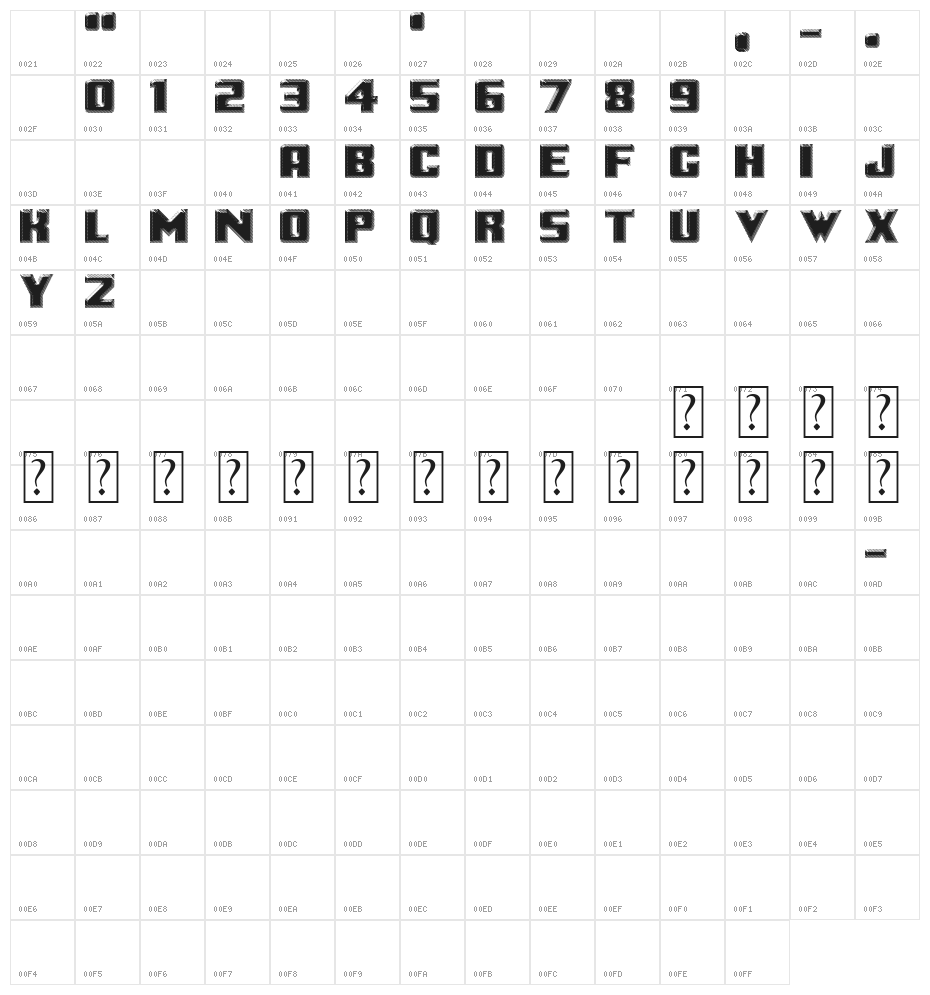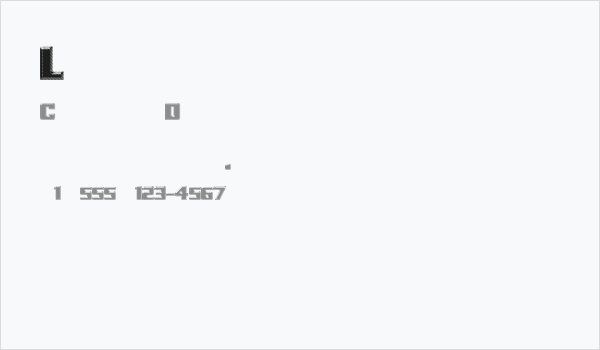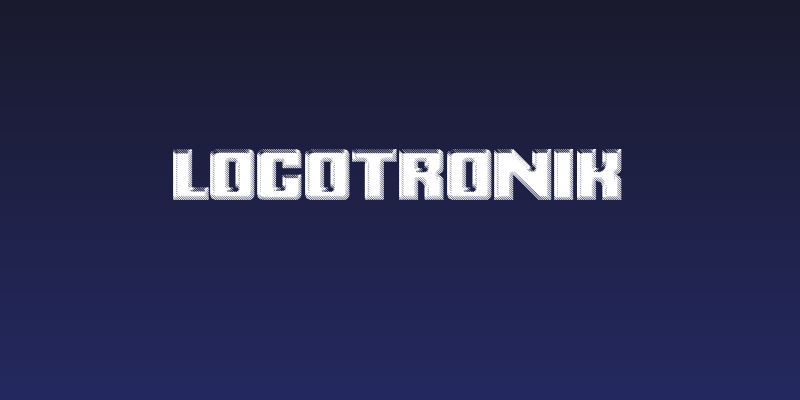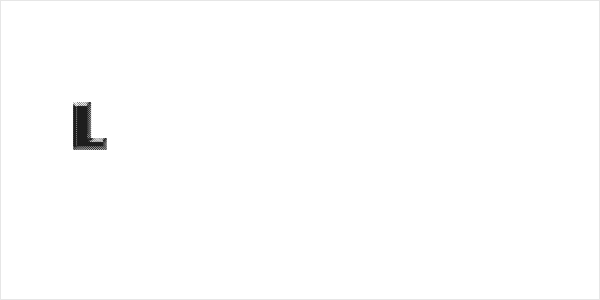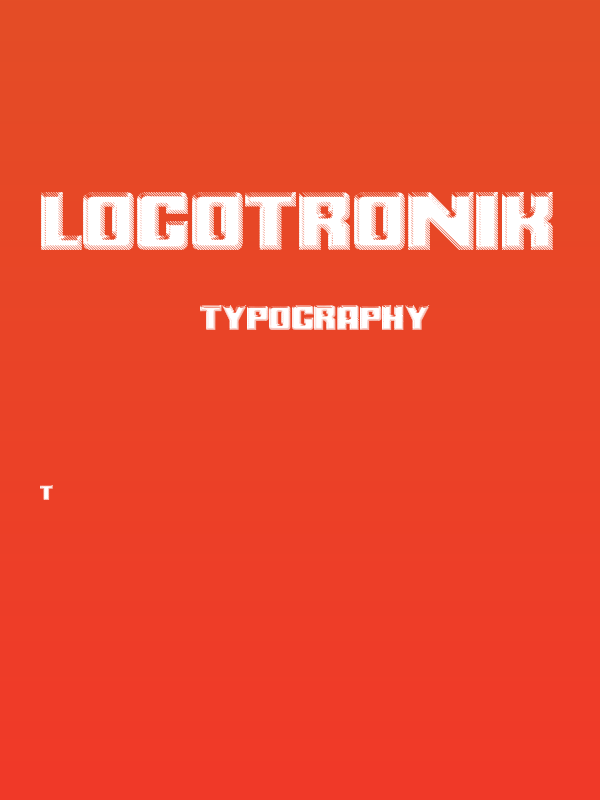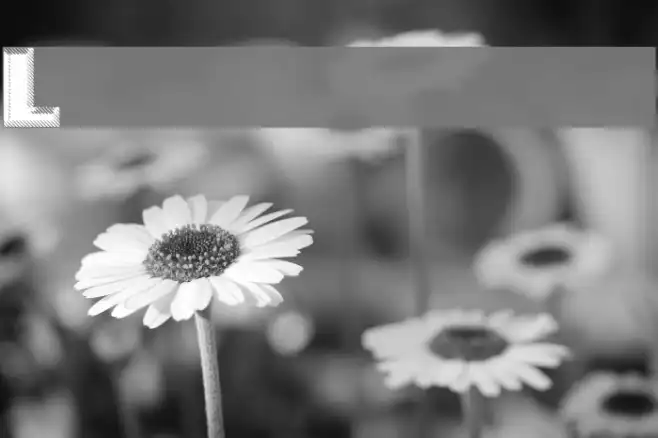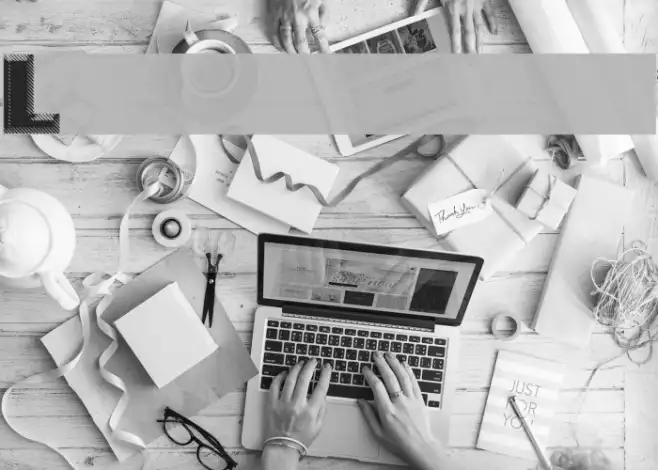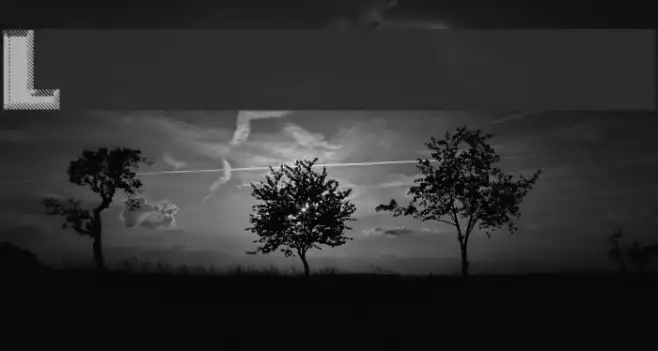
Logotronik Font
Logotronik Description
This font features a bold, geometric design with a distinct futuristic and industrial feel. The characters are constructed with thick, block-like shapes that give a sense of strength and stability. Each letter and number is filled with diagonal lines, adding a dynamic texture that enhances its modern appeal. The font maintains a consistent height across all characters, providing a uniform appearance. The angular edges and sharp corners contribute to its edgy and contemporary style, making it ideal for projects that require a strong visual impact.
| Use Case | Logos, Headlines |
| Proposed Projects | Ideal for technology branding, video game titles, sci-fi movie posters, and industrial-themed designs. |